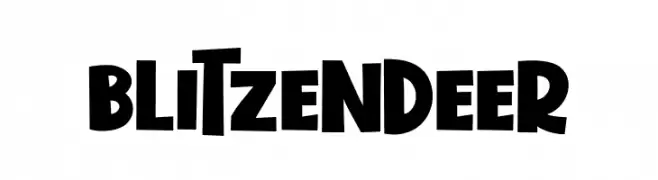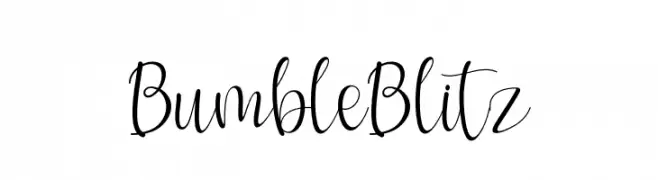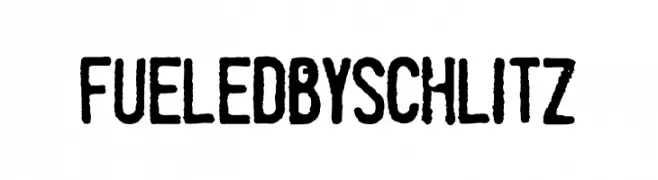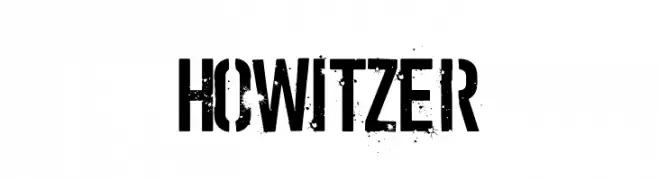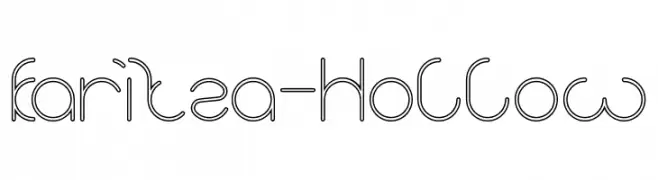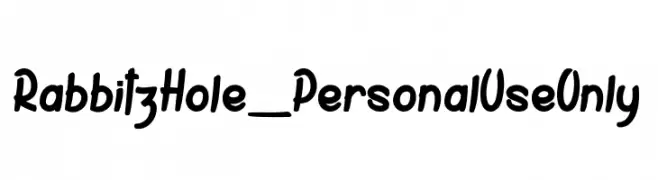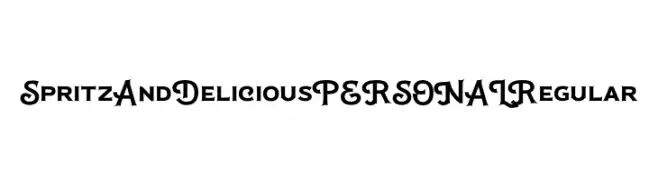
A bold, distressed font with a rugged, industrial aesthetic.
A playful and elegant handwritten script font with fluid, artistic characters.
An elegant script font with flowing, ornate characters and high contrast strokes.
A playful, bold handwritten font with thick strokes and a casual style.
A bold, playful font with rounded characters and a whimsical style.
A bold, distressed font with a vintage, hand-printed look.
An elegant script font with flowing letterforms and intricate swashes.
A bold, geometric font with a pixelated, digital aesthetic.
A modern, hollow outline font with smooth curves and a playful yet sophisticated style.
A bold, decorative font with ornate uppercase and strong lowercase letters.